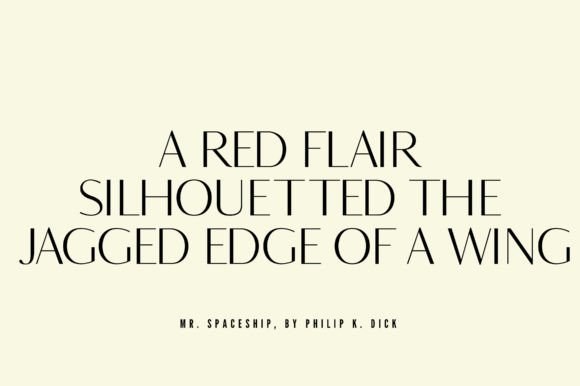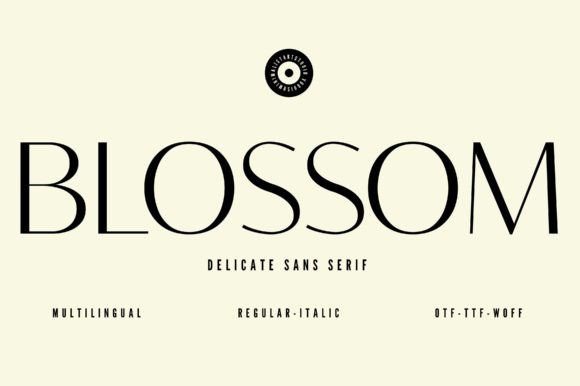
Blossom Font
Introducing Blossom, the chic and elegant sans-serif font that will elevate your designs to the next level. With its delicate lines and sophisticated curves, Blossom is perfect for luxury branding, editorial layouts, and high-end product packaging.
With over 520 glyphs, Blossom offers a wide range of options for customization and creative expression. Plus, with multi-lingual support, this font is perfect for designers who work with clients worldwide.
Where Blossom Font works best
Blossom Font stays legible at small sizes, which makes it a strong choice for navigation, buttons and dashboards in web design and app interfaces.
Clean sans serifs like Blossom Font are the default language of SaaS, fintech and product branding.
Blossom Font is a Sans Serif Fonts typeface tagged Branding, Creative, Editorial, Elegant. It works well for headlines, logos, posters, social media graphics and branding projects that need a distinctive sans serif fonts look.